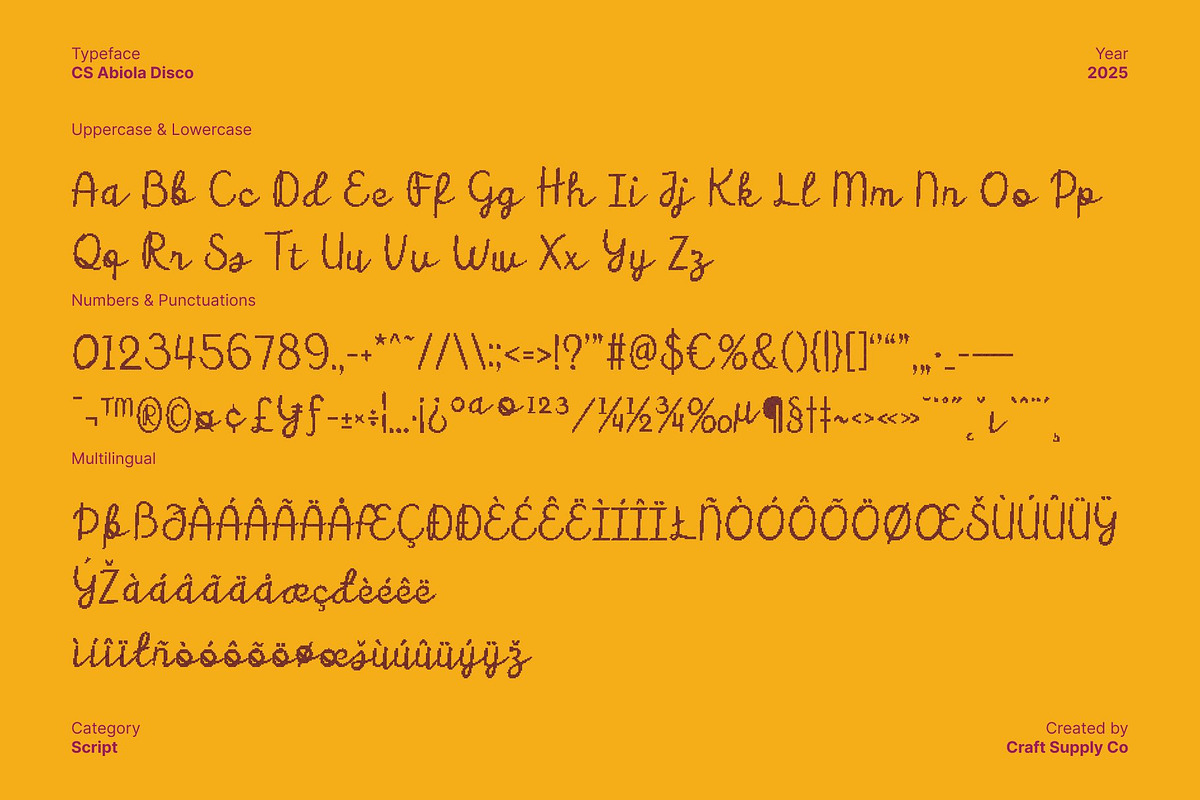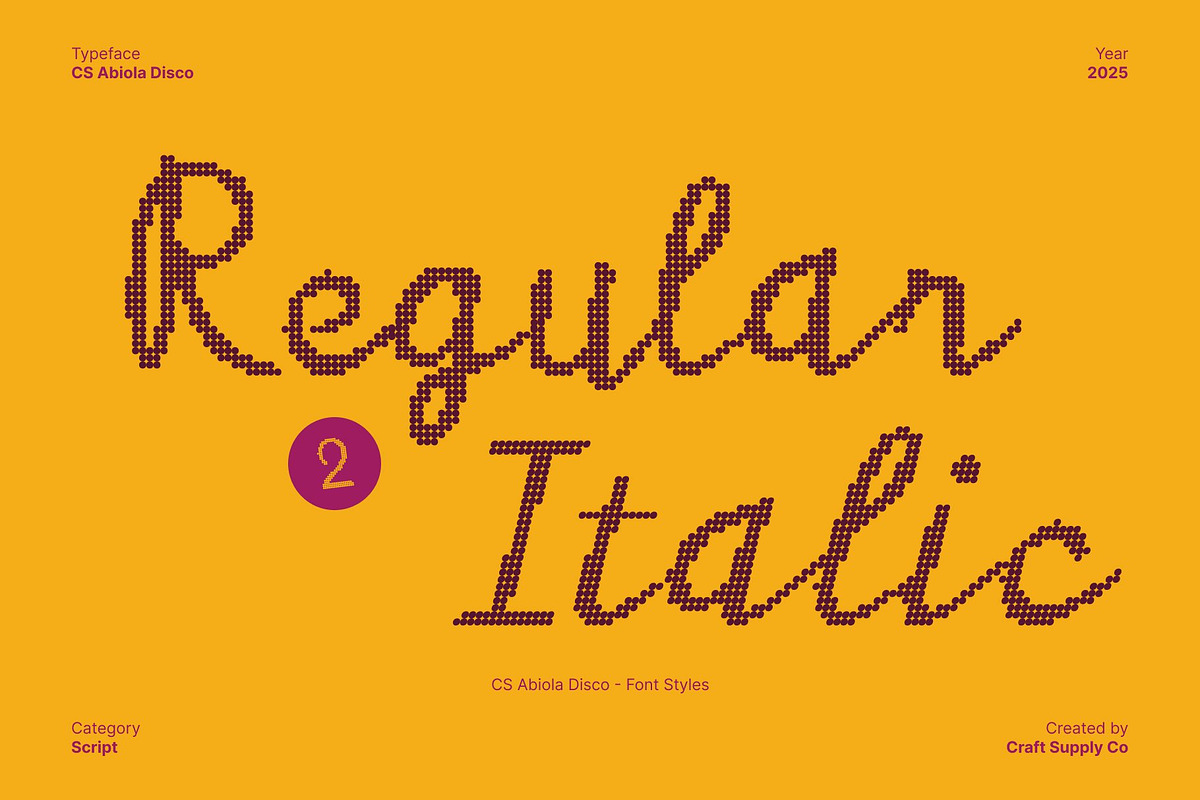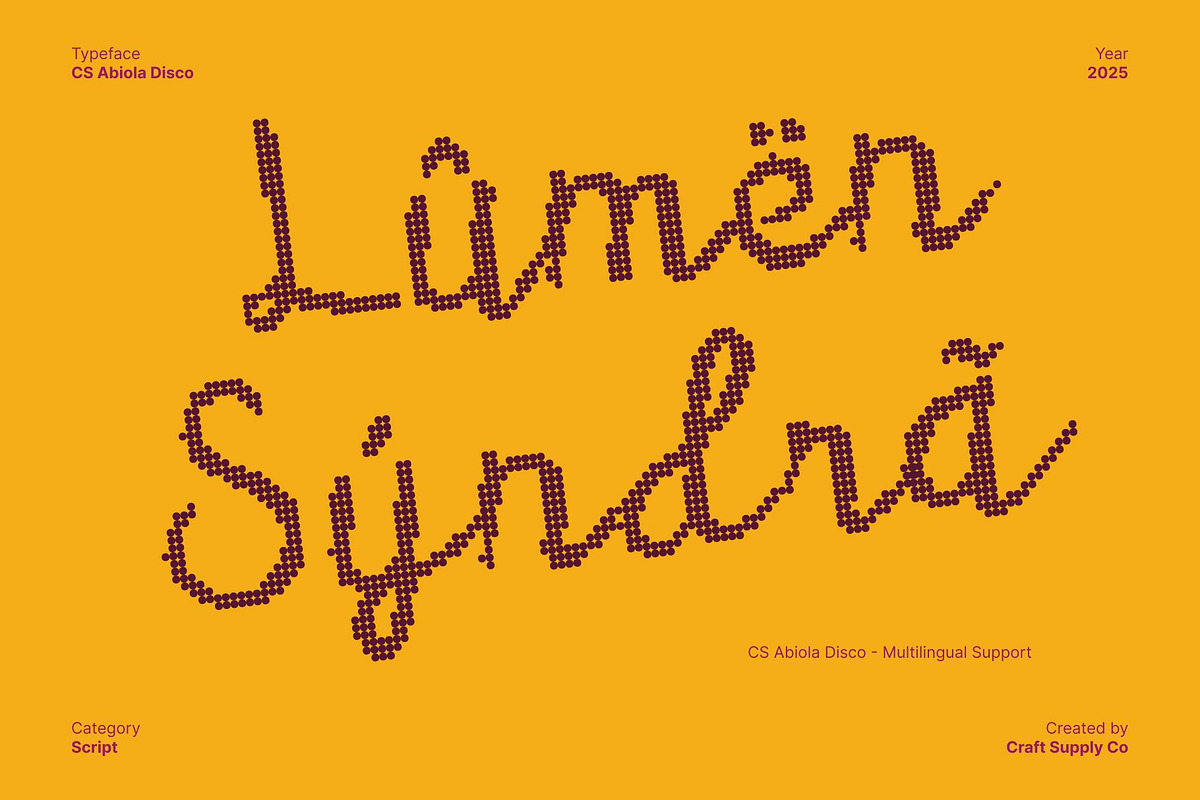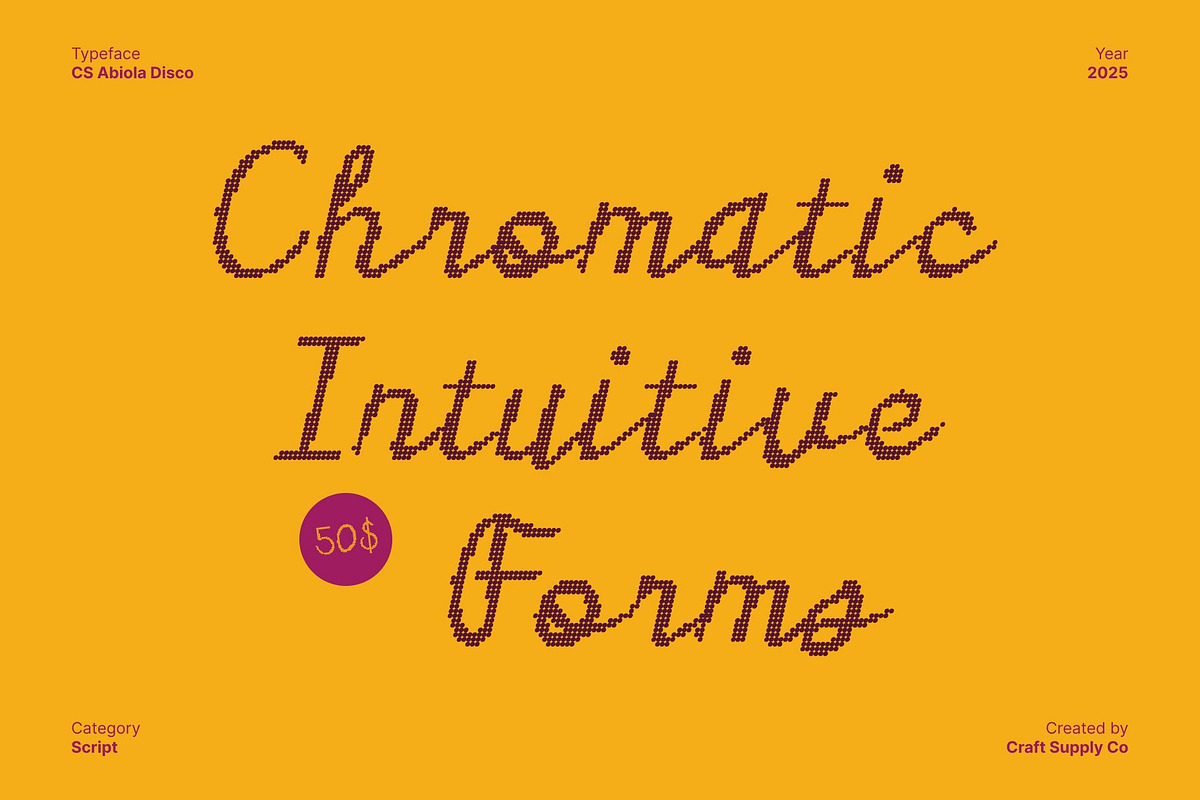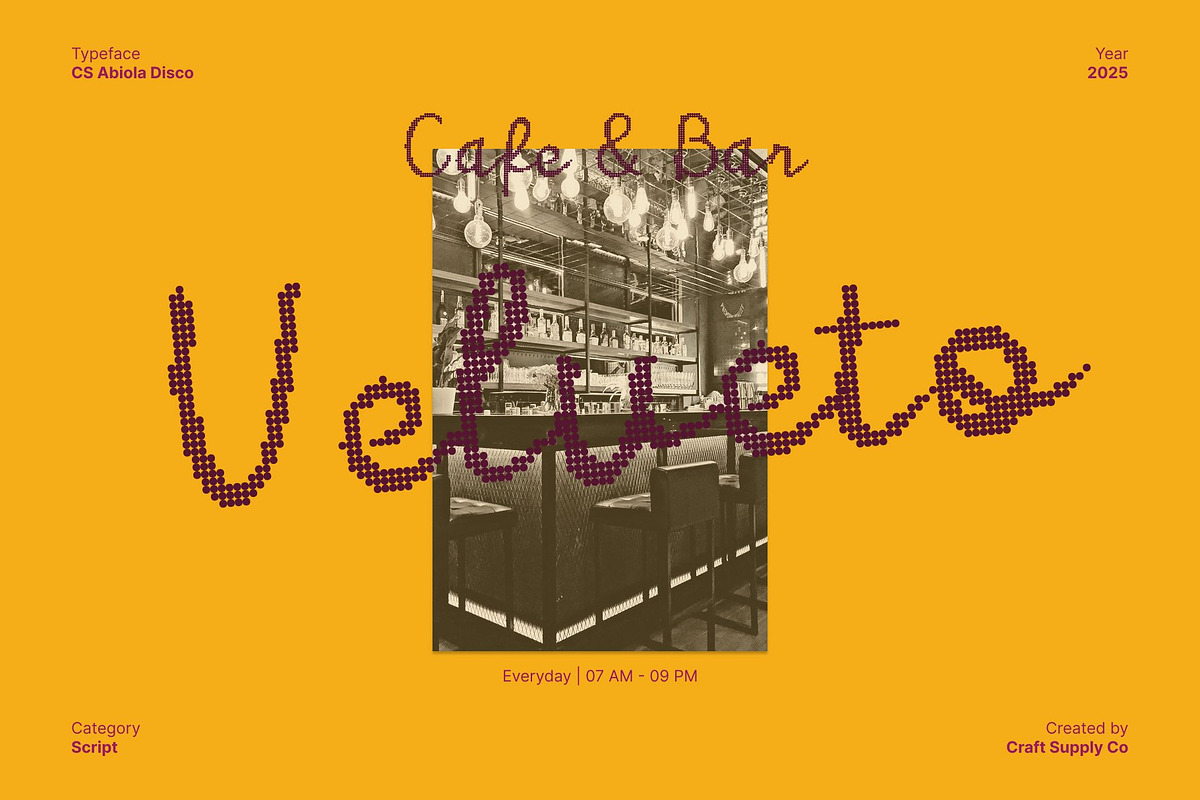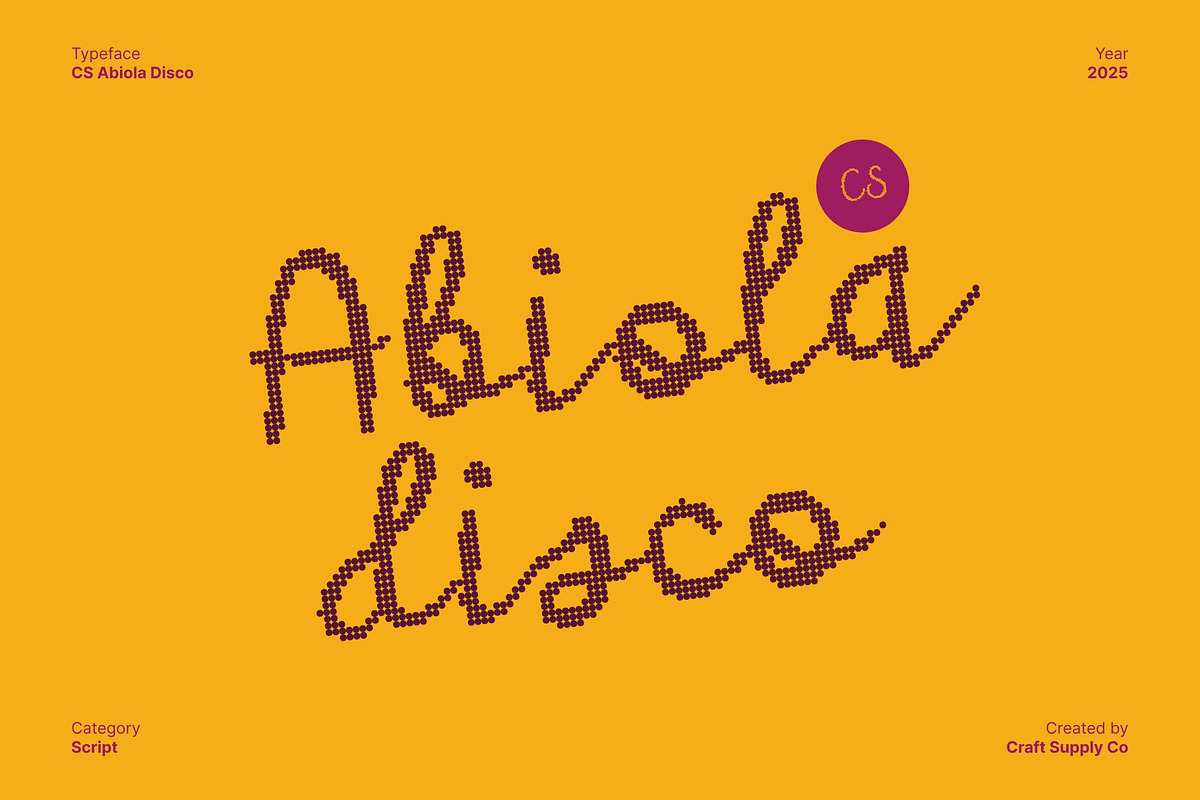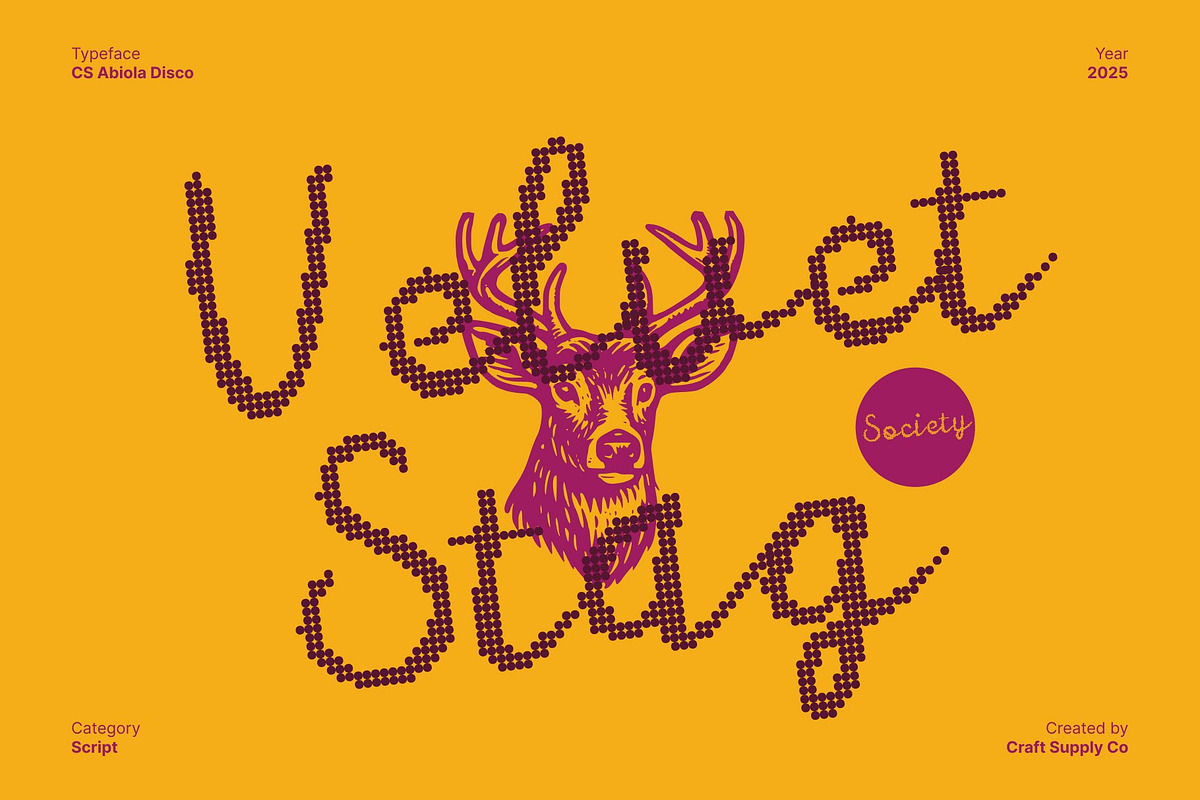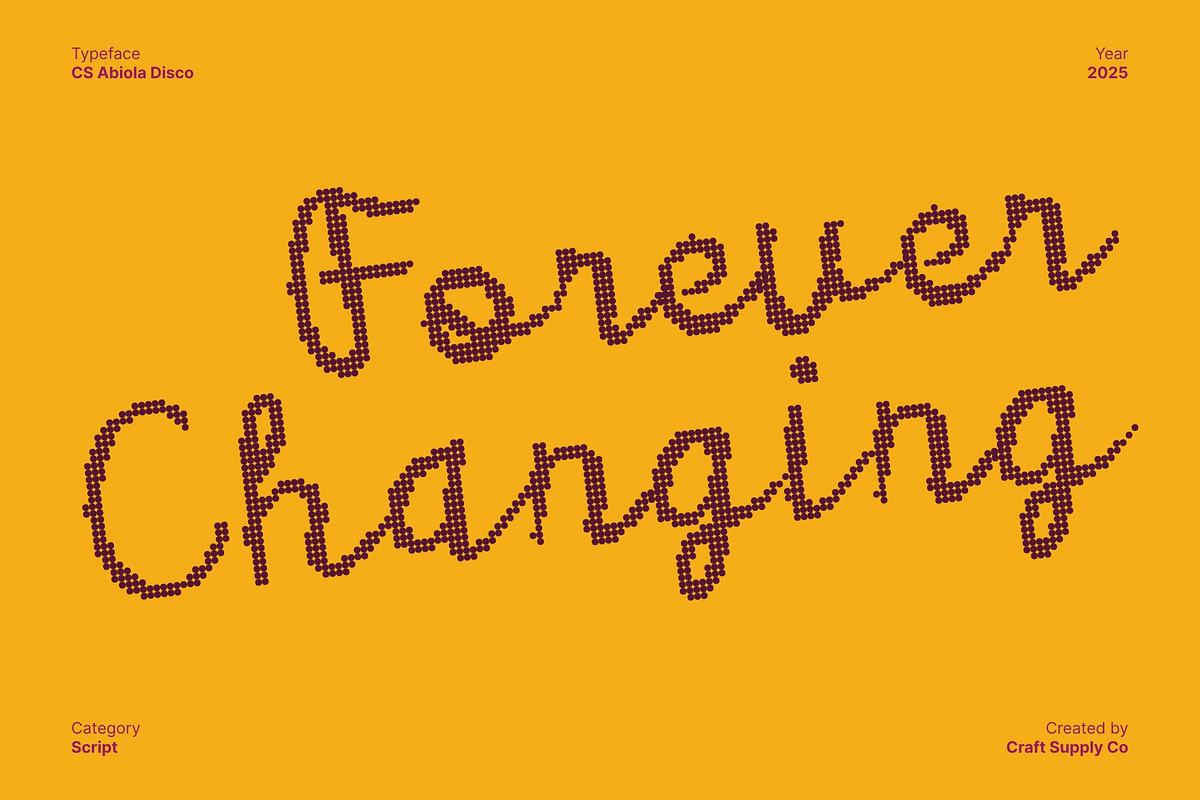
CS Abiola Disco
CS Abiola Disco – Graceful Script with a Glamorous Sparkle
Elegant Script Font with Disco Radiance This is a classic flowing script font that embodies grace, rhythm, and sophistication. Each curve flows seamlessly into the next, creating an elegant dance of form and style that feels both timeless and expressive. Its refined strokes make it ideal for luxury projects and high-end design work.
Disco Flair for Modern Glamour The disco inspired shimmer enhances its delicate structure with sparkling highlights and lively energy. This radiant effect transforms the script’s elegance into something vibrant and eye catching, making it perfect for digital branding, event posters, and festive design projects.
Versatile and Stylish Across Applications Whether you’re creating luxury packaging, elegant signage, or glamorous social media visuals, this font adapts beautifully. It bridges classic beauty and modern shine, giving designers a versatile typeface that always captivates.
Where Classic Grace Meets Disco Spark This font combines sophisticated script artistry with a glittering contemporary twist, making it the ideal choice for designs that demand elegance, glamour, and timeless charm.
- CS Abiola Disco Regular
- CS Abiola Disco Italic